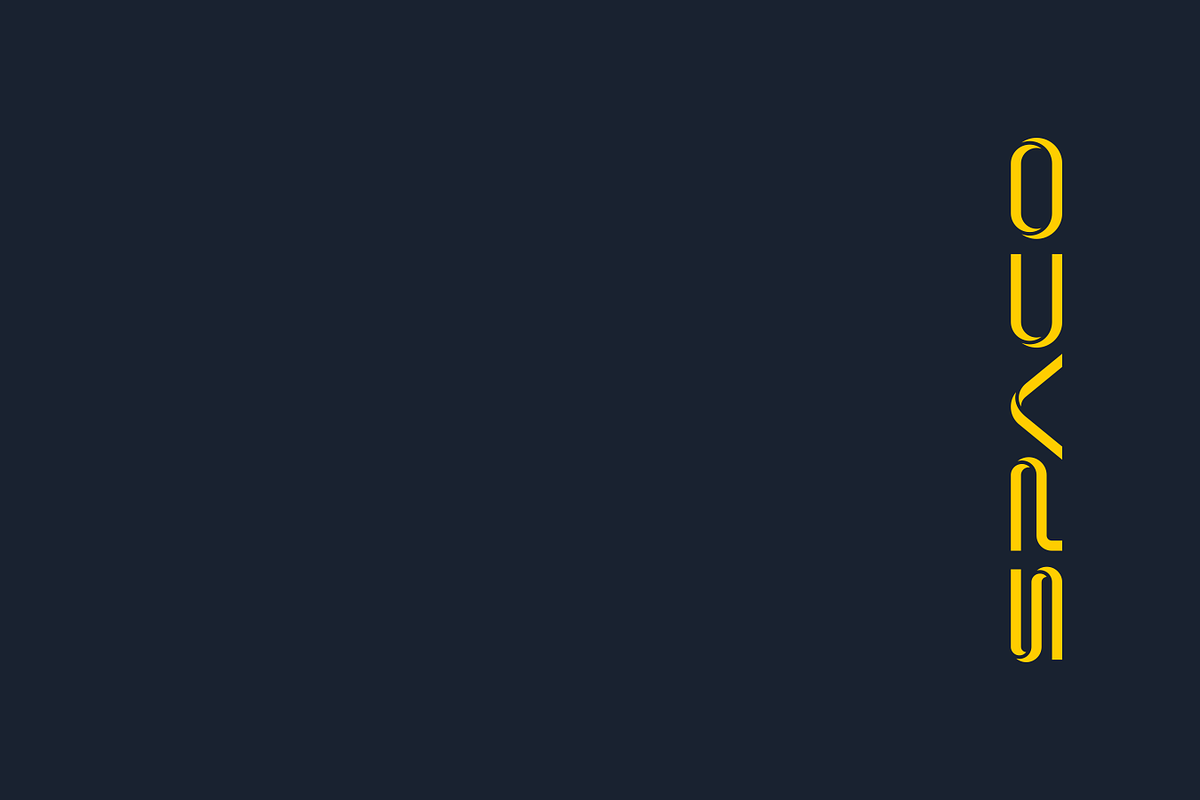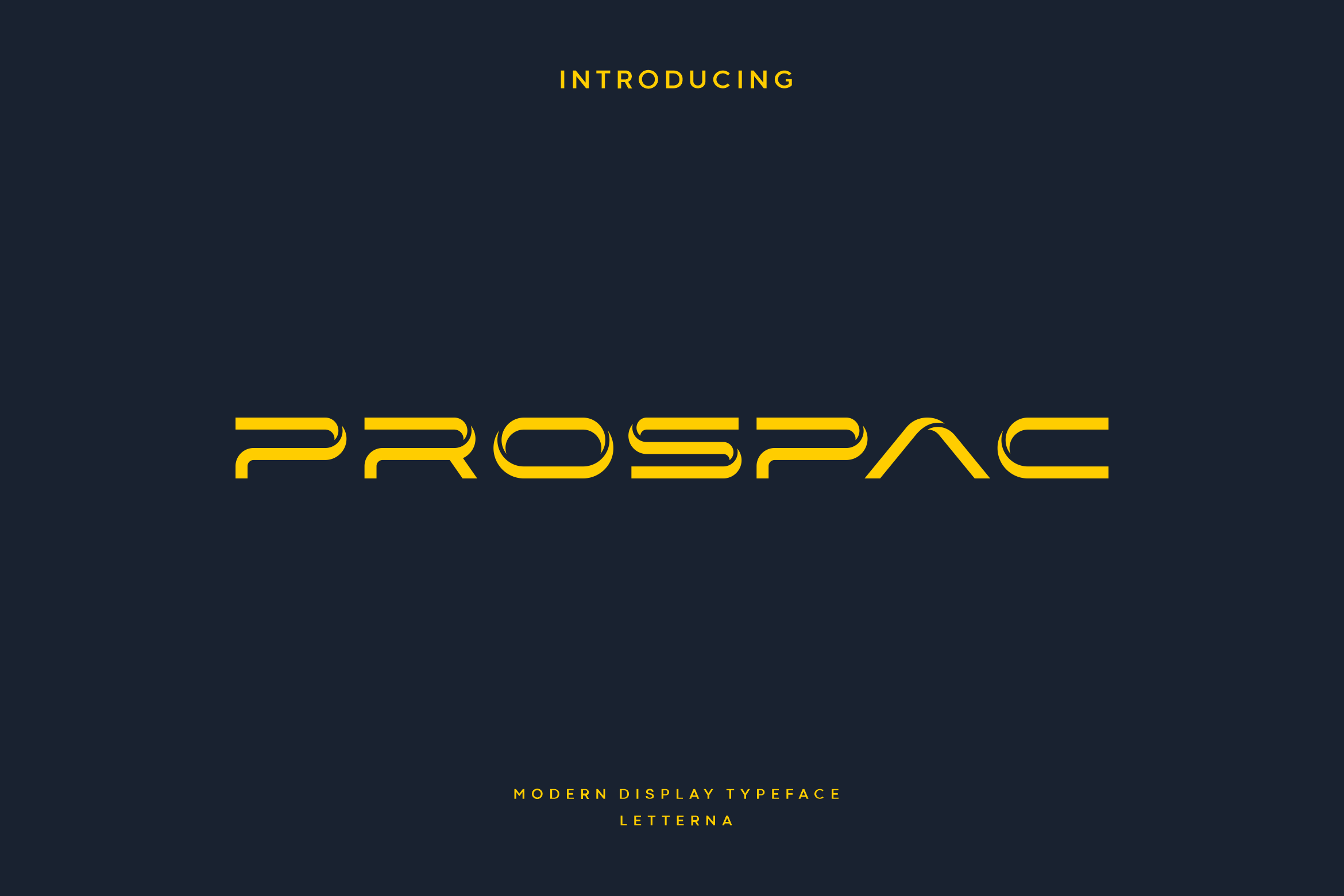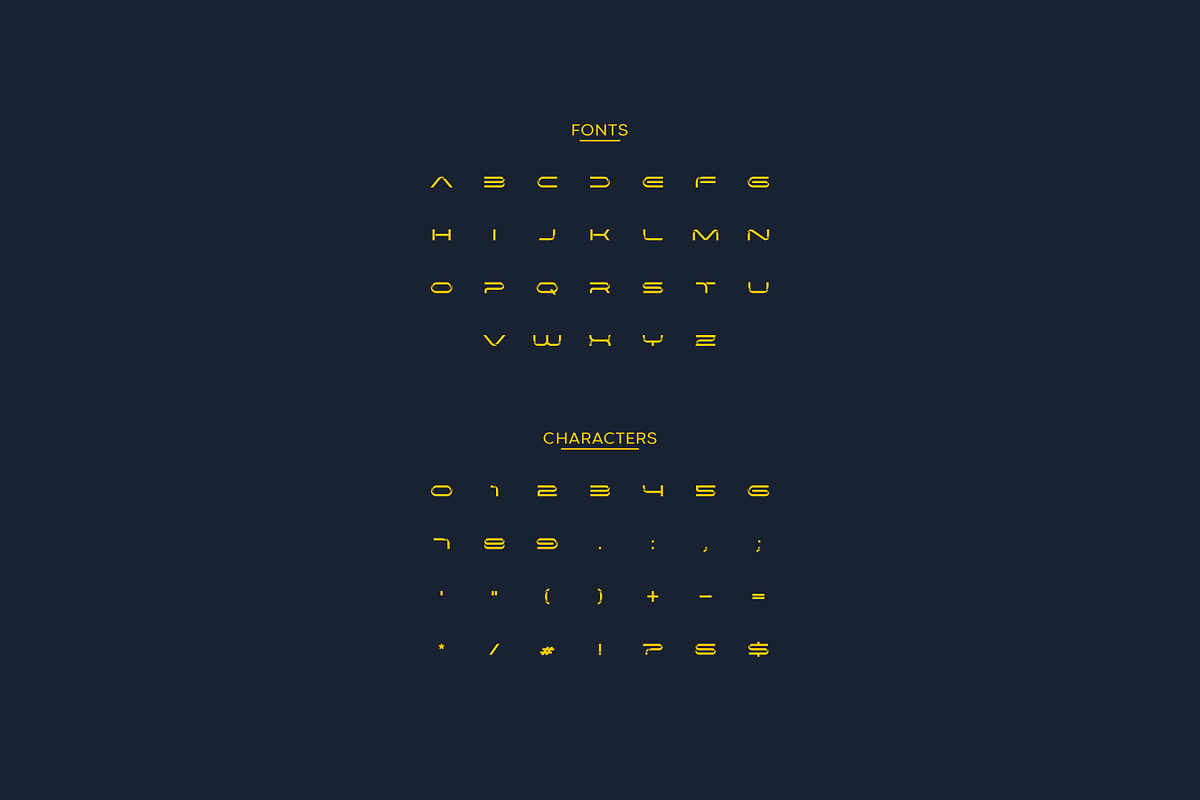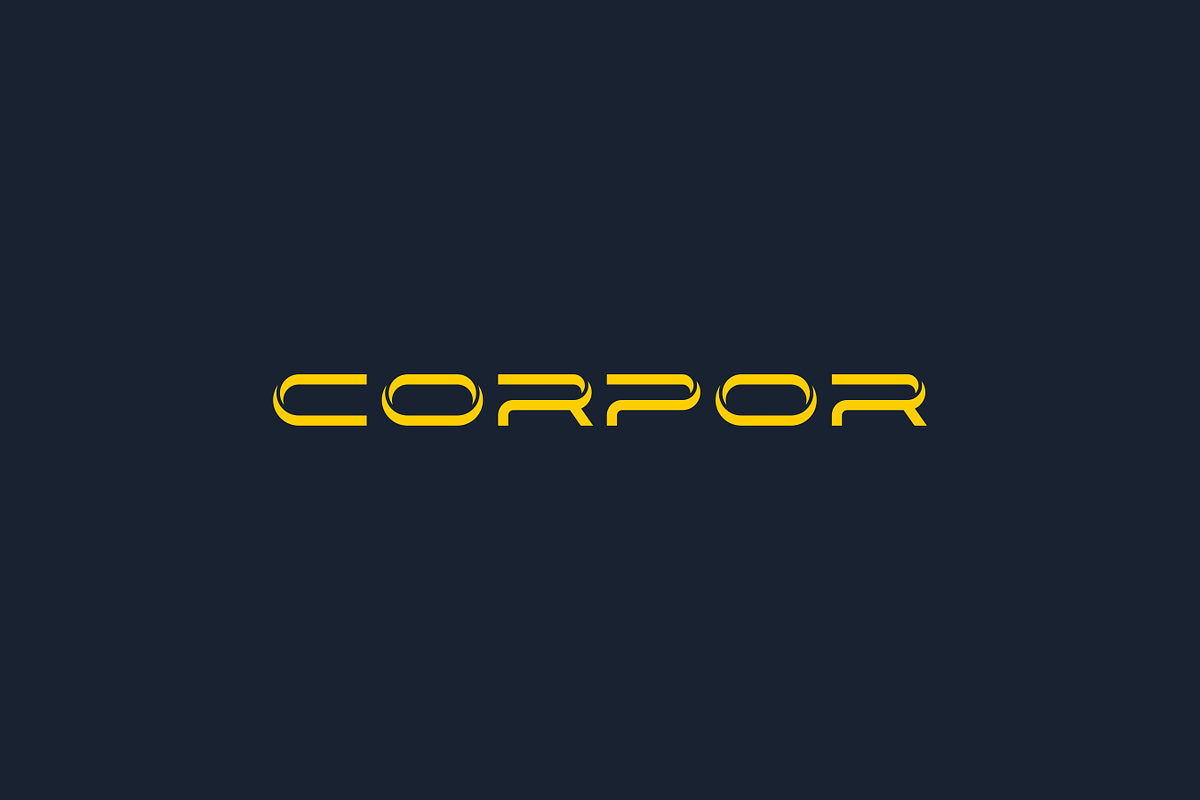
Prospac - Modern Futuristic Typeface
Prospac is a modern, elegant and futuristic look font. This font would be ideal for writing web designs, business cards, or just about anything else that requires a unique touch. With a sophisticated concept and very elegant shape that will look modern on future technology designs.